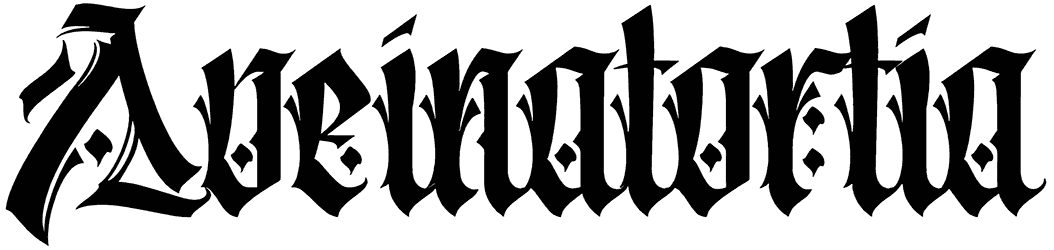
Aveinatortia Font
Designed byIlhamtaro
Let your words be a reference to the rich culture of Asia as you customize them with Aveinatortia. This graffiti font, with its dynamic brush strokes or its decorative dots and blooms, holds onto your attention and won’t let go.
This cool design makes Aveinatortia suggest itself for your branding flags, T-shirts, historical games, or even something with a martial arts theme. Meanwhile, it comes in handy as a blackletter font or when you’re not afraid to mix things up.